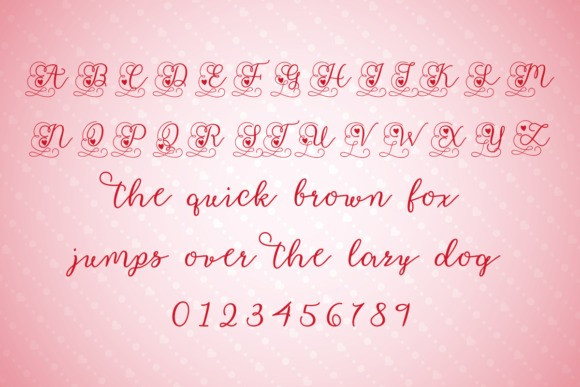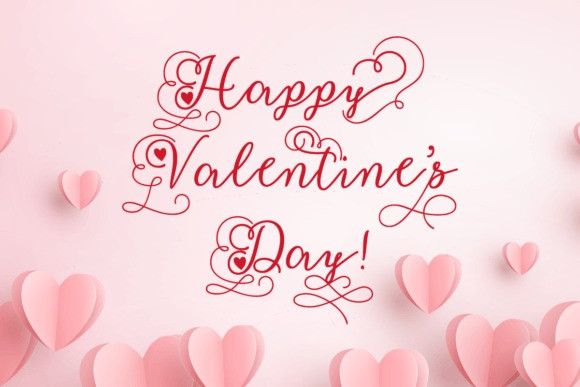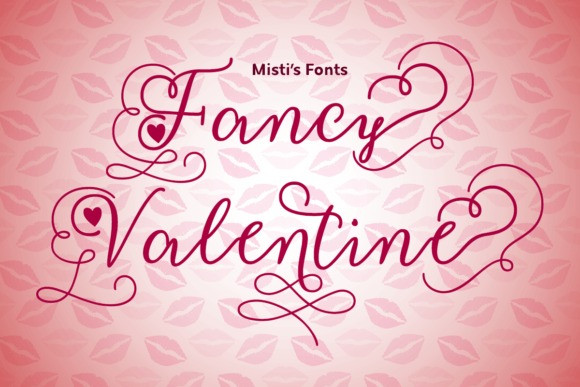
Fancy Valentine Font
Fancy Valentine Script Font is a lovely calligraphy typeface perfect for adding charm to your love-themed projects. Create elegant greeting cards, personalized V-day gifts, stunning products, and more!